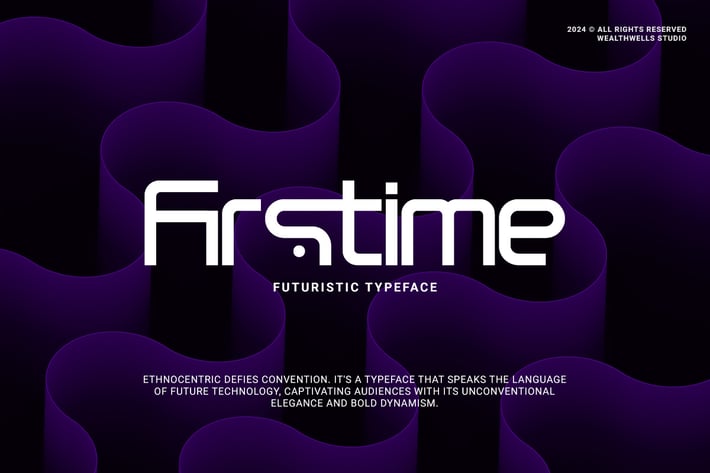
Firstime Futuristic Typeface
Firstime Futuristic Typeface excellent used for the manufacture quote text, logotype, header magazine, education, apps and many more.